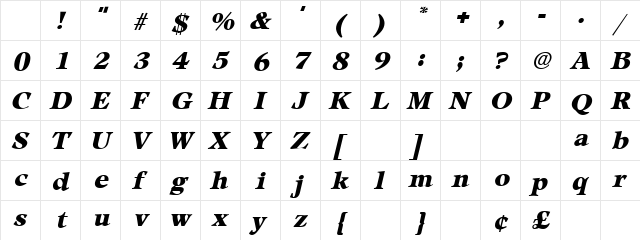
Peplum is a composed and adaptable typeface that performs quietly and consistently across a wide range of design contexts. The slanted form adds forward momentum and visual energy.
Pro Tip: Use Peplum for emphasis, pull quotes, and subheadings where its slanted energy can add rhythm to the layout.